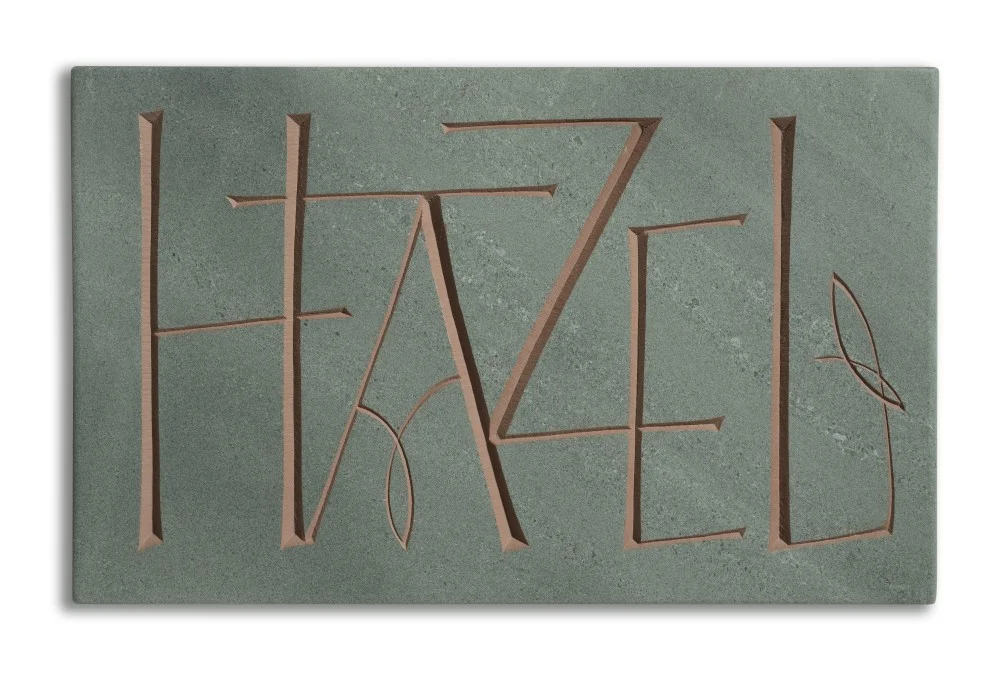
Hazel by Emi Gordon
This carving in Cumbrian green slate, by Emi Gordon, celebrates the word ‘Hazel’, and was created as part of our exhibition ‘The Lost Words - Forget-me-not.’ For this exhibition artists have created a permanent record of the natural words removed from the Oxford Junior Dictionary. Size: 21 x 34cm
NOUN: HAZEL
NOUN
Temperate shrub or small tree with broad leaves, bearing prominent male catkins in spring and round hard-shelled edible nuts in autumn.
Genus Corylus, family Betulaceae: several species, in particular the common Eurasian hazel (C. avellana)
ORIGIN: Old English hæsel, of Germanic Origin; related to Dutch hazelaar ‘hazel tree’, hazelnoot ‘hazelnut’, and German Hasel, from an Indo-European root shared by Latin corylus.
It is so sad to see that some words which have been associated with the British countryside for a long time are disappearing from the Oxford Junior Dictionary. In recent years, our daily life has changed so that children might be far distant from the nature which all these words represent. The flora and fauna themselves are not disappearing from nature – yet. I want to give people who come to see this exhibition a chance to think about those words.
HAZEL: It is such a useful plant for humans. We can eat the nuts and have been using it as a material for making wattle, fencing, baskets and the frames of boats. It features in European mythology and folklore, showing that people have known and loved this plant for a long time.
I would like to show hazel’s characteristic nature as a material for weaving in my work. Introducing a very tight spacing between letters creates an impression of the letters interlacing as if they are woven.
The letters are painted the colour of a hazelnut.